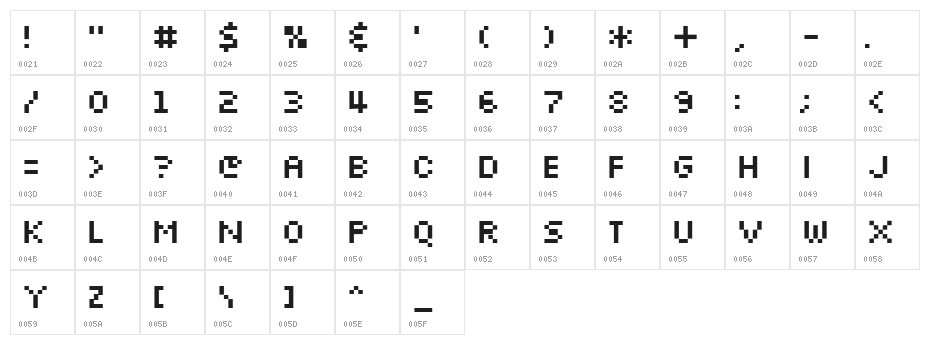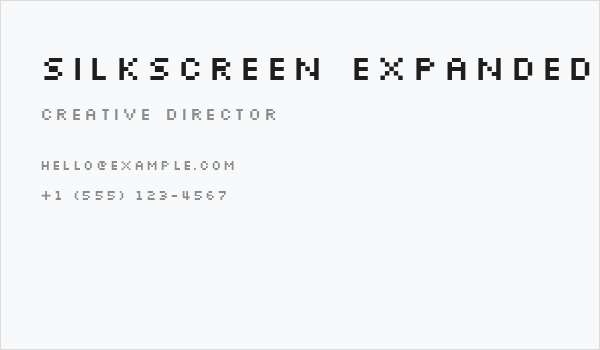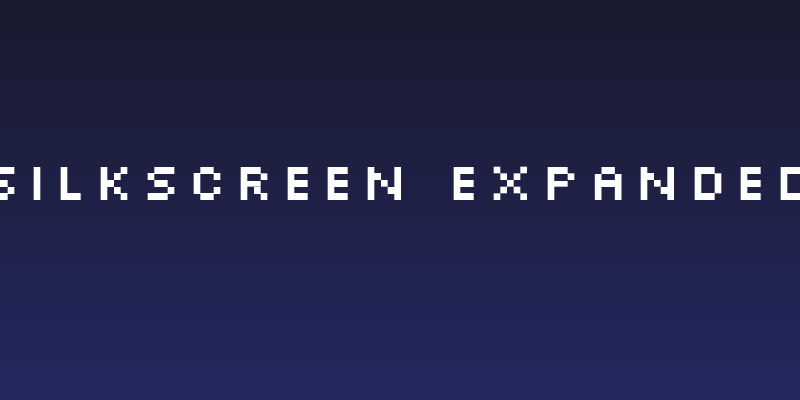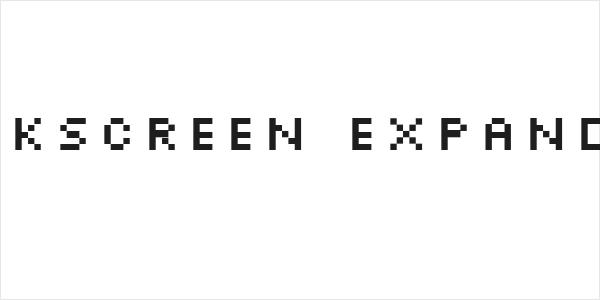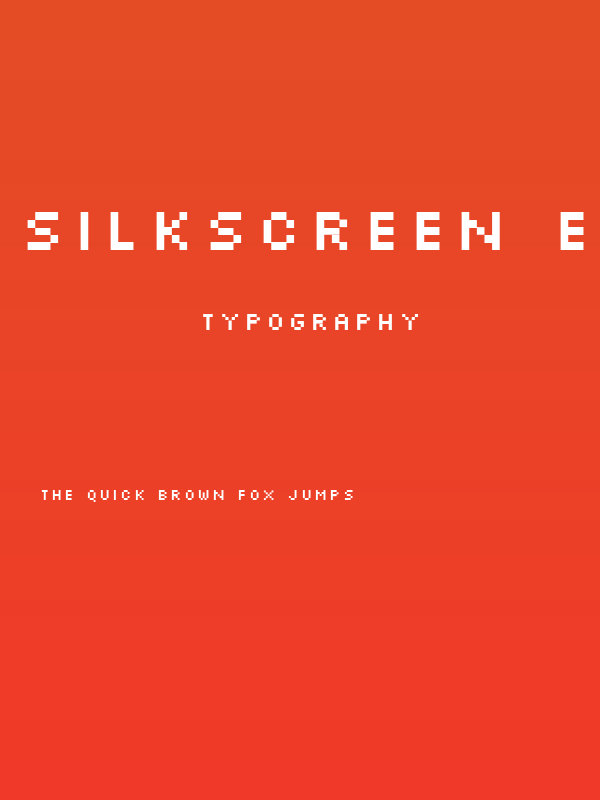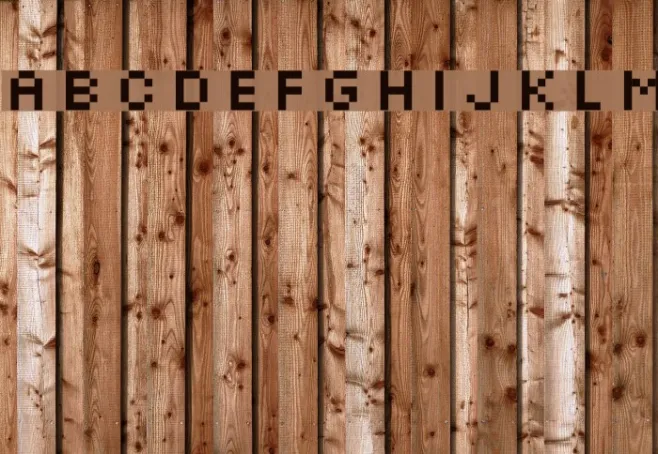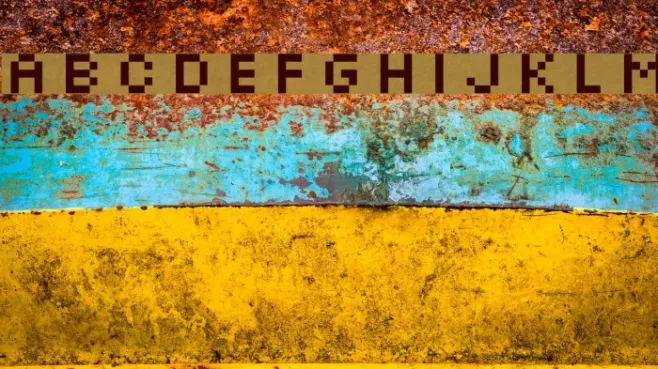
Silkscreen Expanded Font
Silkscreen Expanded Description
This font features a pixelated, grid-like design reminiscent of early digital displays and retro video games. Each character is constructed with a uniform pixel structure, giving it a distinctly digital and blocky appearance. The characters are evenly spaced, maintaining a consistent and structured layout. This style evokes a sense of nostalgia and simplicity, making it ideal for projects that aim to capture a vintage digital aesthetic. The font is highly legible at various sizes, though it shines best in larger formats where its unique pixelated style can be fully appreciated.
| Proposed Projects | Ideal for retro video game designs, digital art projects, tech-themed posters, and any creative work that seeks to evoke a sense of nostalgia for early digital displays. |